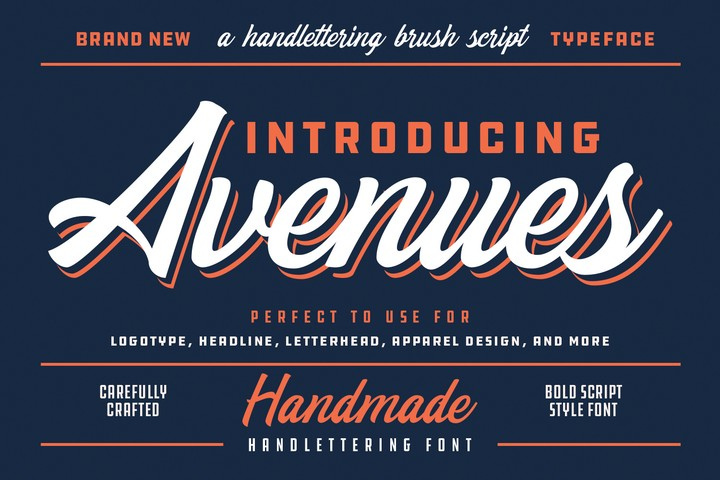
Avenues Font
Avenues Font is perfect for urban planning organizations, city development agencies, metropolitan transportation systems, architectural design firms, street-level retail branding, and urban lifestyle magazines. Its directional character makes it ideal for real estate development companies, urban navigation apps, city tourism boards, metropolitan government communications, street art galleries, and any project requiring urban sophistication with directional clarity and metropolitan pathway appeal.
This font is exciting because it embodies the organized structure and endless possibilities of urban pathways while delivering exceptional functionality for organizations navigating the complex landscape of modern city life and urban development. The systematically crafted letterforms reflect the grid-like organization and directional flow of city streets, creating typography that guides audiences through urban experiences with confidence and metropolitan sophistication.
The Avenues Font family typically includes Light, Regular, Medium, and Bold weights with urban alternates, directional ligatures, and metropolitan elements that enhance its city-focused personality. This comprehensive collection enables urban professionals to create navigational brand systems that maintain city credibility while offering flexibility for various metropolitan applications requiring both directional authority and contemporary urban market positioning.
Whether you're developing identity systems for urban development companies, creating materials for city navigation services, or designing promotional content for metropolitan lifestyle brands, Avenues Font Free Download delivers the urban sophistication and directional appeal that connects with city-dwelling audiences seeking efficient navigation and metropolitan excellence. Its structured presence ensures reliable brand recognition across digital platforms and print materials, making it perfect for websites, mobile applications, and urban campaigns that celebrate city planning, metropolitan lifestyle, and the transformative power of organized urban pathways with contemporary city standards and authentic metropolitan guidance.